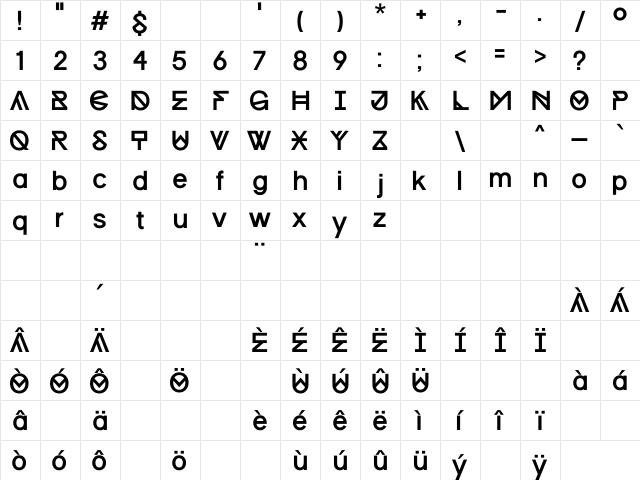
Progress Regular
Design Context for Progress Typeface
Progress offers clean, dependable letterforms without strong stylistic allegiance, making it a practical choice for designers who need flexibility.